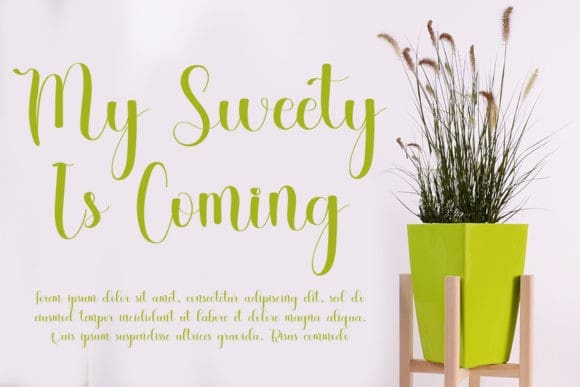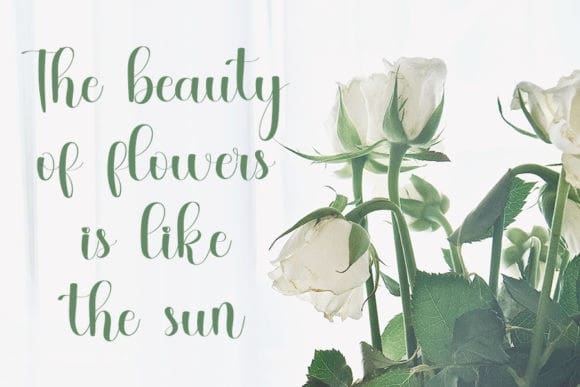
Master Pretties Font
Master Pretties Font is a beautiful and refined script font. It has a classy, elegant and modern look that can be used for logos, branding, invitations, stationery, wedding designs, social media posts, and much more!